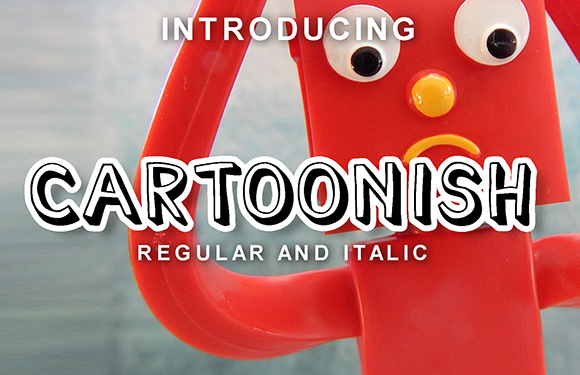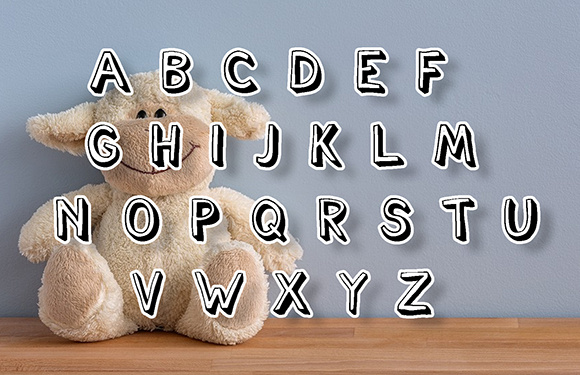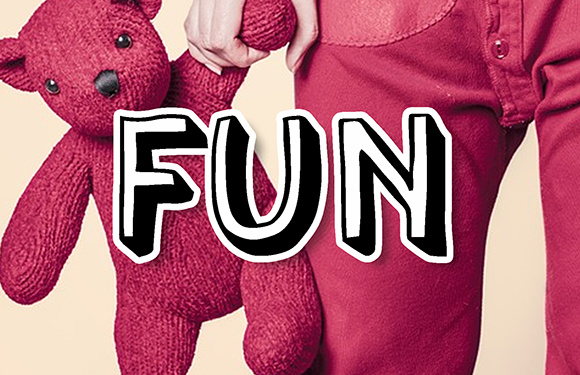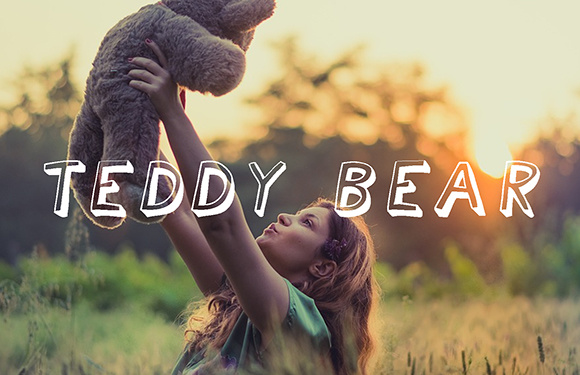
Cartoonish Font
About Cartoonish Font
Cartoonish is a nice handcrafted font that comes in regular and italic versions.Cartoonish is great for flyers, posters, banners, and much more!